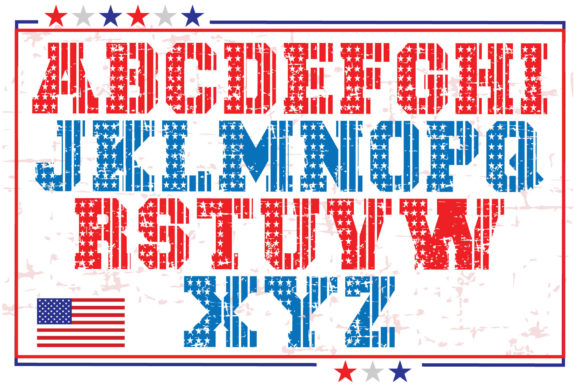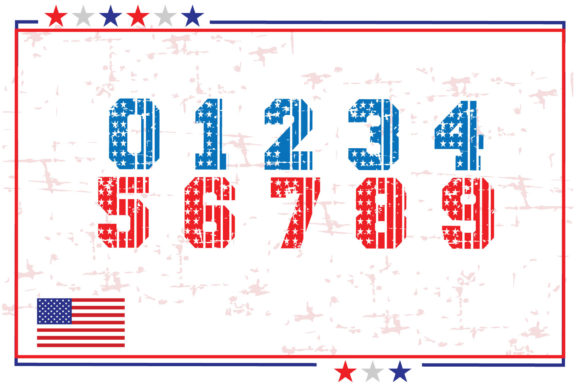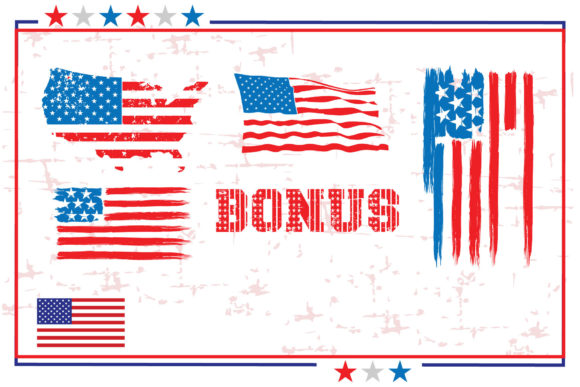
An Honest Review of 4th July Font
What I Love About 4th July Font
- ✨ Bold and Festive: The 4th July Font is designed to make a statement. Its bold and playful style is perfect for creating eye-catching designs for celebrations and joyful events.
- ✅ Versatile: This font can be used for a wide range of design projects, from party invitations to social media graphics, and even craft projects.
- 🎉 Easy to Read: Despite its bold style, the font remains easy to read, making it perfect for headlines and titles.
While the 4th July Font is amazing, there are a few things to keep in mind:
- 🤔 Limited Use Cases: Due to its bold and playful style, this font might not be the best fit for more formal or professional designs.
- ⚠️ Glyph Limitations: Some users have reported that the font could benefit from more glyphs and special characters.
The Backstory of 4th July Font
The 4th July Font was designed by a team of creatives who wanted to capture the essence of summer celebrations. Inspired by the vibrant colors and joyful atmosphere of Independence Day parades, they crafted a font that’s both bold and playful. The result is a font that’s perfect for adding a touch of festivity to any design project.
| Font Name | 4th July Font |
| Author | KtwoP |
Q: What type of designs is the 4th July Font best suited for?
A: The 4th July Font is perfect for designs related to celebrations and joyful events, such as party invitations, social media graphics, and craft projects.
Q: Is the 4th July Font available in different styles or variations?
A: Yes, the 4th July Font comes with various OpenType features, glyphs, and stylistic alternates that allow you to experiment with different styles and variations.